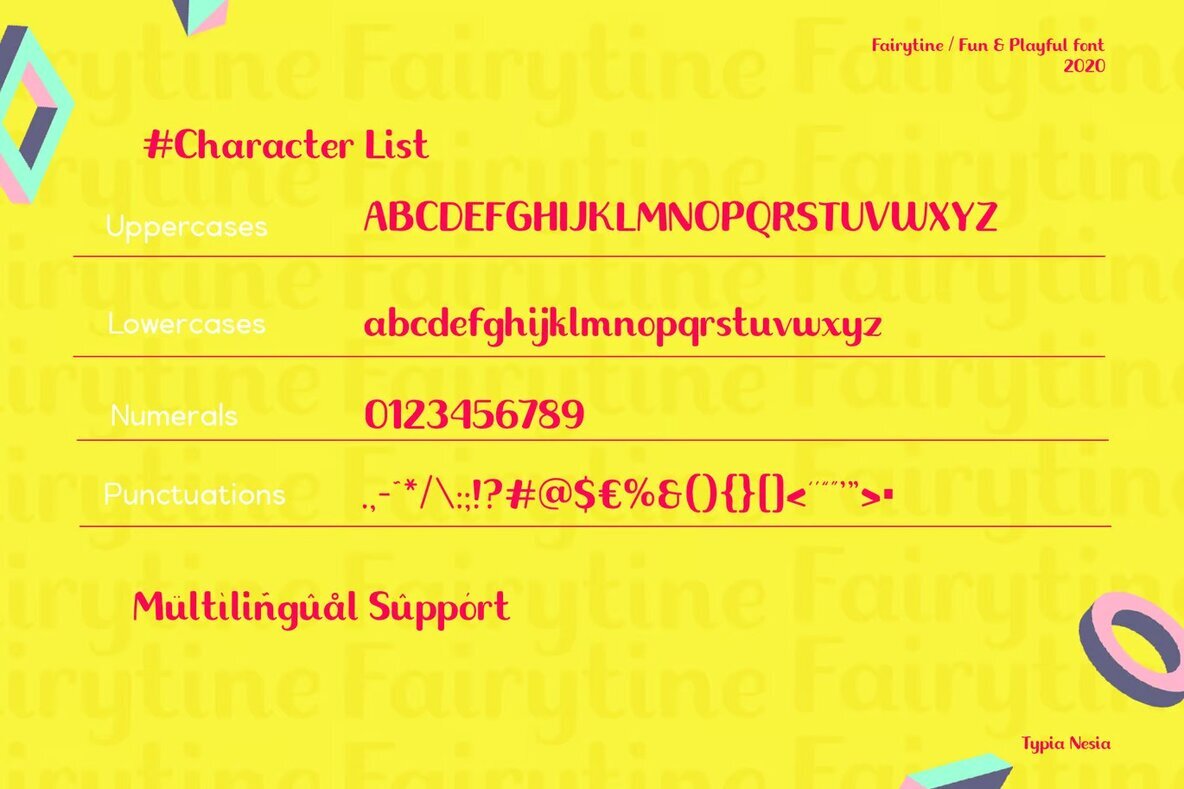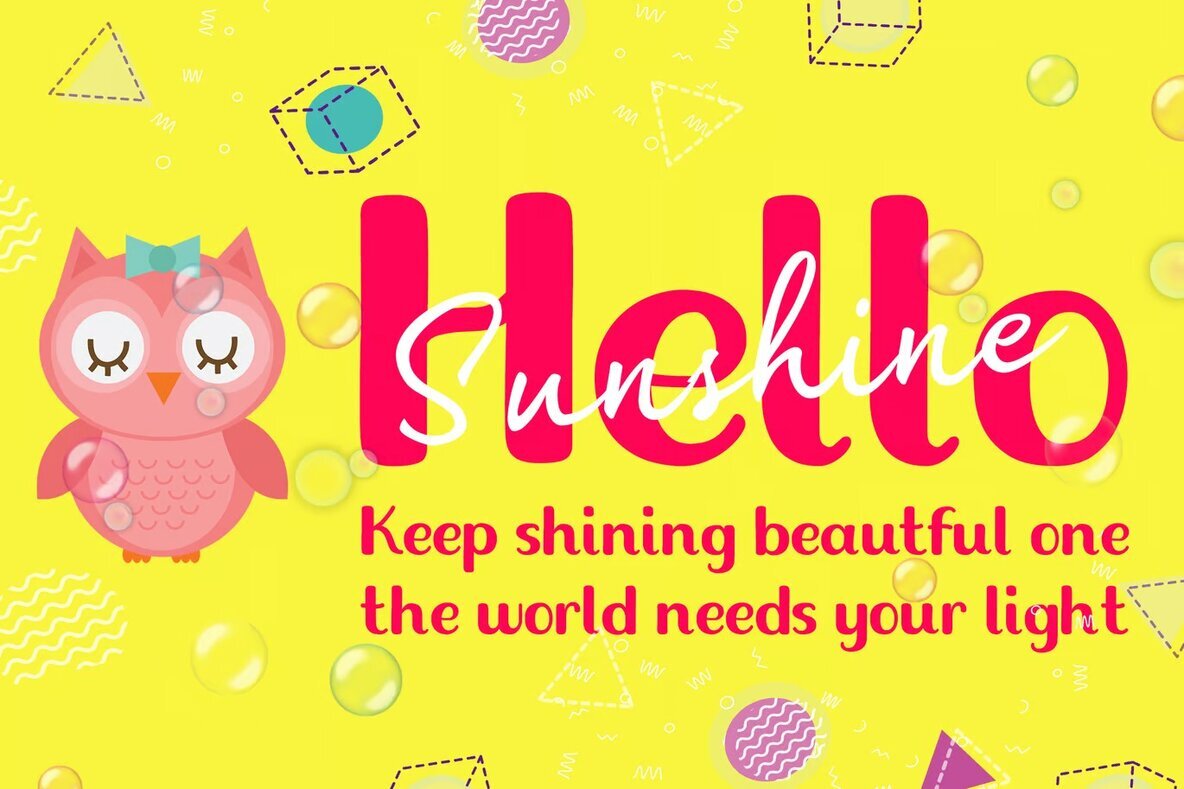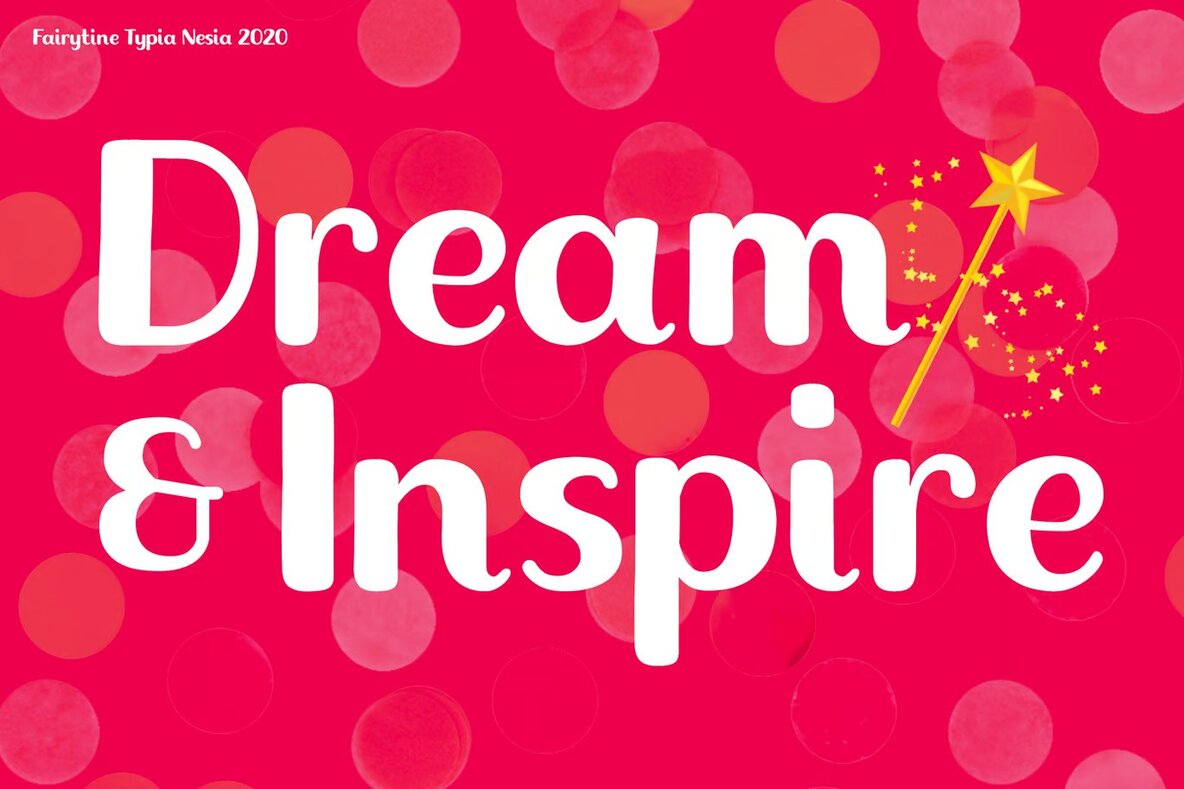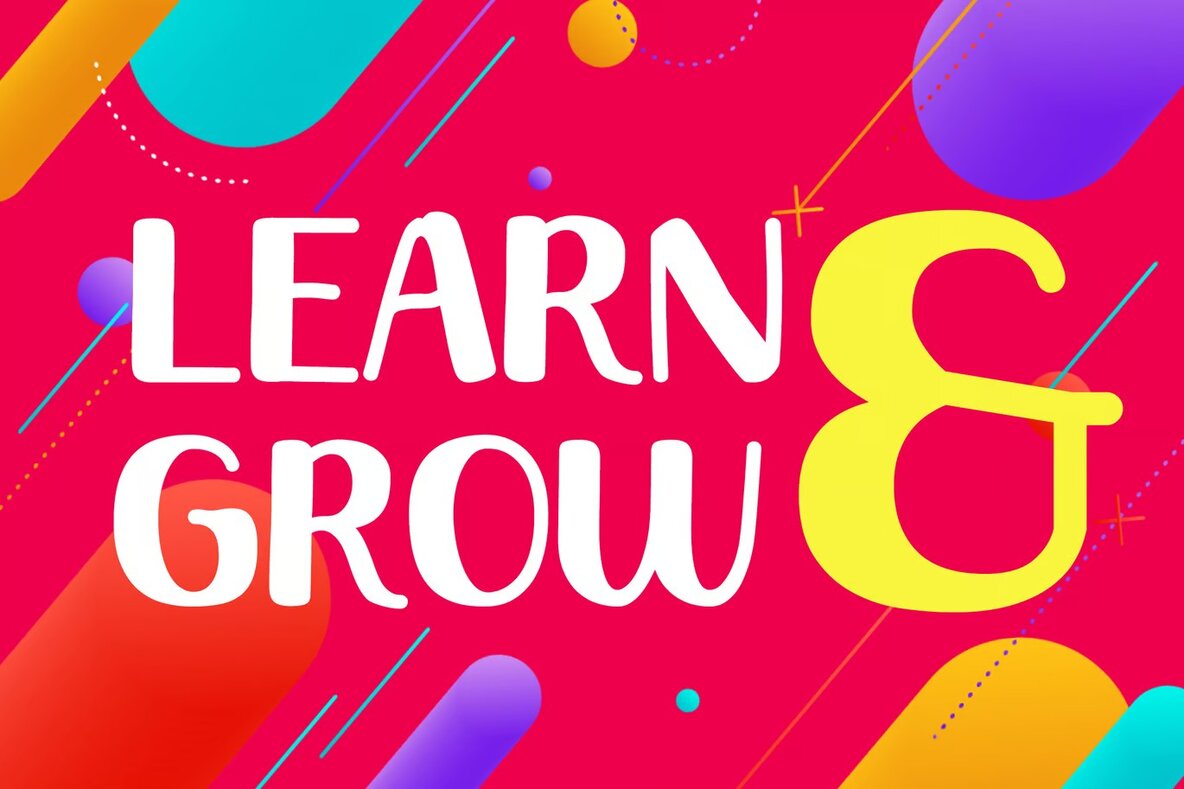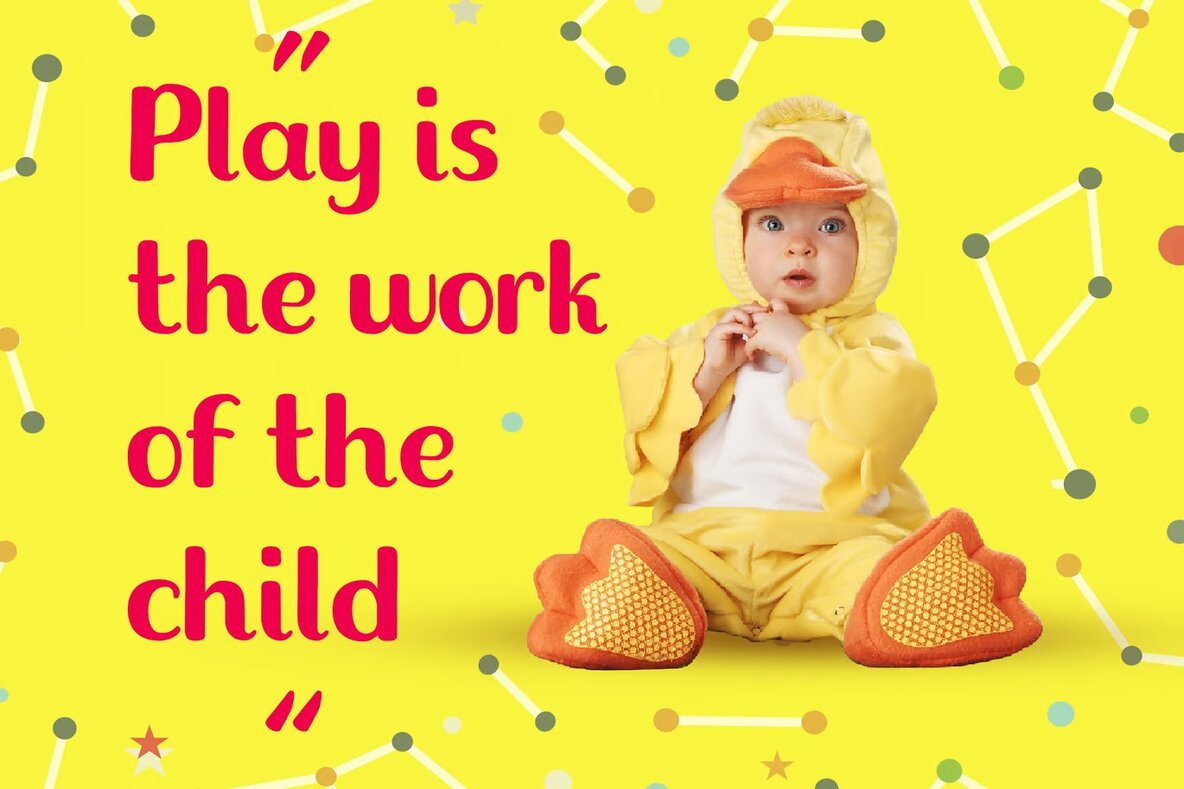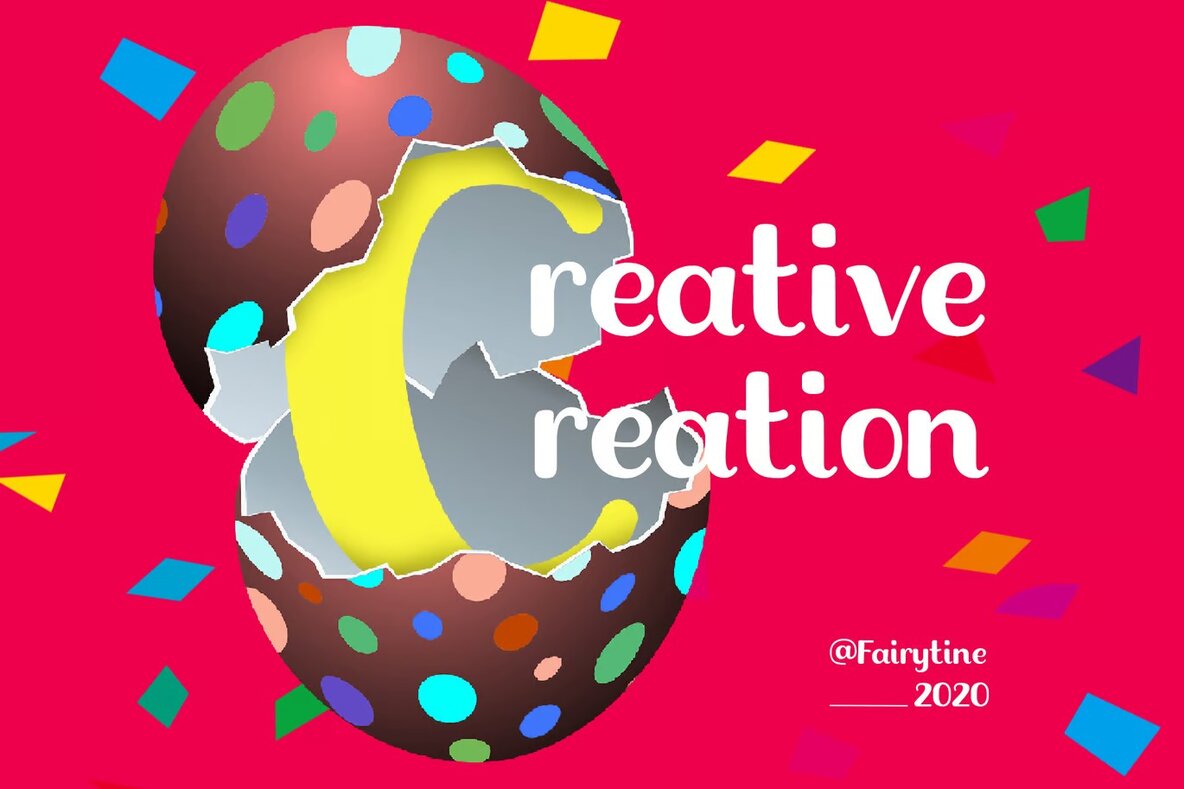
Fairytine Font
Fairytine is a playful and groovy font ideal for a variety of creative projects. It brings a fun touch to kid-friendly designs, such as game logos, kindergarten branding, and children's book covers. The font is also a great fit for vibrant food and beverage packaging, modern advertising, and animated projects. Whether you're designing for toys, posters, or custom apparel like t-shirts and mugs, Fairytine adds a lively character to your work.
Embrace Fairytine's distinctive charm in your next project, be it for a website, blog, or any hand-lettered needs. Its cheerful and engaging style makes it perfect for capturing the imagination of young audiences and bringing a joyful vibe to your design endeavors.